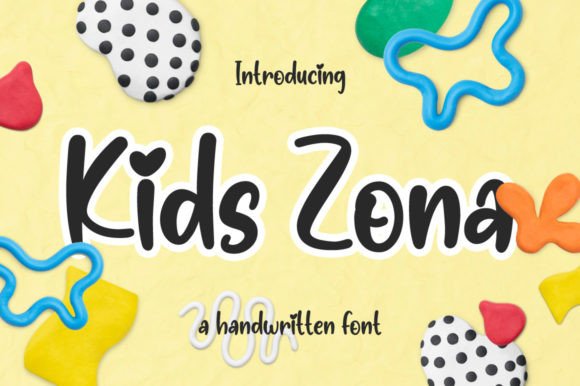
In a world where creativity and uniqueness thrive, allow us to introduce you to Kids Zona Font, the ultimate font for captivating the hearts and imaginations of young minds. This exquisite creation by Graphix Line Studio is not just a font; it's a gateway to a world of boundless creativity, designed to unleash the magic within your children's stories, educational materials, and chalkboard art.
Picture this: your child's eyes lighting up as they embark on a journey through the pages of a book, where each word dances across the page in the enchanting strokes of Kids Zona. Its delicate and simple-lettered handwritten style whispers tales of wonder, adventure, and discovery, making every story come alive.
With Kids Zona, the possibilities are endless. Create teaching materials that engage and inspire, transforming dull lessons into vibrant adventures. Its authentic look adds a personal touch, making each word resonate with warmth and authenticity. The chalkboard-inspired design evokes a sense of nostalgia, reminding us of the days when learning was a joyous exploration of knowledge.
But Kids Zona is not just for educational purposes. It's a font that ignites creativity, allowing children to express themselves through art, design, and storytelling. Its simple yet elegant style makes it perfect for personalizing projects, greeting cards, and invitations, adding a touch of whimsy and charm to every creation.
So, let Kids Zona be the key that unlocks your child's imagination. Dive into a world where words become vibrant characters, where learning is a delightful adventure, and where creativity knows no bounds. Download Kids Zona today and experience the magic of storytelling like never before.